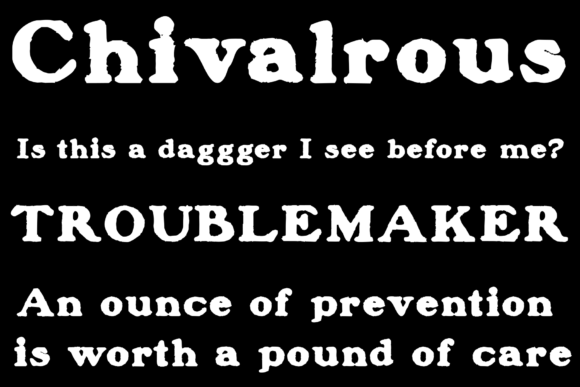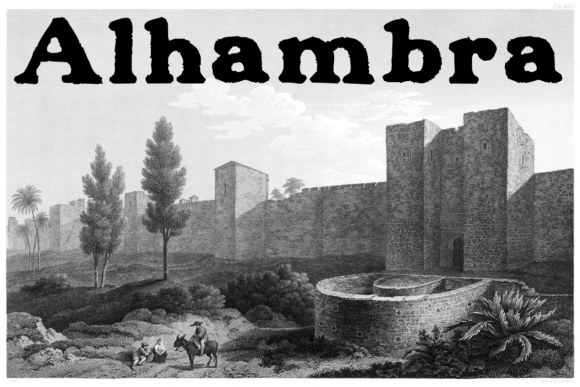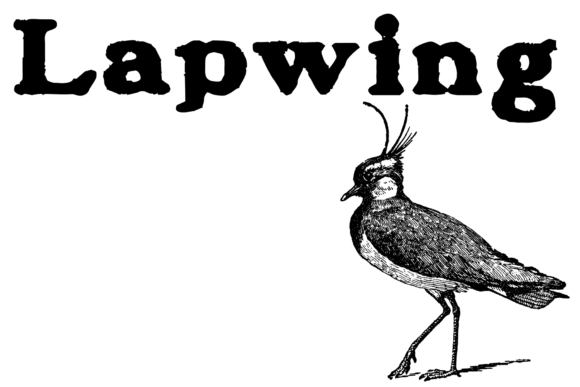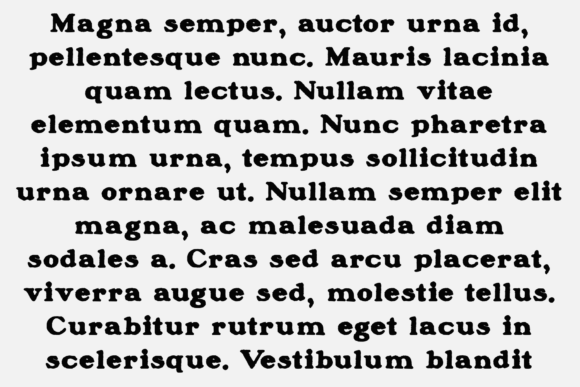
Discover the Timeless Elegance of Blanchard Inland Fc Font
In the world of typography, few fonts have managed to stand the test of time as gracefully as the Blanchard Inland Fc Font. This exquisite typeface, originally released by the esteemed Inland Type Foundry at the dawn of the 20th century, has been meticulously digitized to bring its classic charm to modern design aesthetics. Let’s unfold the history and beauty of this timeless classic, reimagined for contemporary designers and crafters.
A Legacy Born in the Early 20th Century
The Inland Type Foundry, a renowned name in the history of typography, first introduced the Blanchard Inland Fc Font in the early 1900s. This period marked a significant era in the evolution of typefaces, with a focus on elegance and readability. The Blanchard Inland Fc Font, with its unique character set, quickly gained popularity for its distinctive style that seemed to capture the essence of the times.
The Art of Digitization
Fast-forward to the digital age, where the art of typography has evolved to embrace the precision and versatility of digital fonts. The Blanchard Inland Fc Font has undergone a meticulous digitization process, aimed at preserving its original charm while adapting it to the needs of modern designers. This digitally revived typeface is not just a nostalgic nod to the past but a robust tool for contemporary design, offering unparalleled elegance and sophistication.
Characteristics of Blanchard Inland Fc Font
The Blanchard Inland Fc Font is characterized by its classic yet modern appeal. Each character in this typeface unfolds a piece of history, meticulously crafted to reflect the sophistication and elegance of the early 20th-century typography. The font features:
- Timeless Design: A fusion of traditional elements with a modern twist, making it suitable for a wide range of design projects.
- High Readability: Ideal for both digital and print media, ensuring your message is conveyed with clarity and style.
- Versatility: Perfect for headings, titles, and body text, offering designers the flexibility to create visually appealing content.
- Digital Precision: Meticulously digitized to ensure crisp and clear rendering across various devices and screen sizes.
Applications in Modern Design
The Blanchard Inland Fc Font, with its rich history and modern elegance, finds applications in various design projects. Whether you’re working on:
- Branding: Establish a legacy with a timeless brand identity that speaks of tradition and sophistication.
- Web Design: Enhance user experience with a font that offers both aesthetic appeal and readability.
- Print Media: Bring a touch of classic elegance to your publications, from magazines to brochures and posters.
- Packaging: Stand out on the shelves with packaging that exudes luxury and refinement.
The Blanchard Inland Fc Font represents a brilliant fusion of tradition and modern elegance, making it a valuable asset for designers and crafters. Its meticulous digitization pays tribute to centuries-old craftsmanship while embracing today’s digital precision. By incorporating this timeless typeface into your projects, you’re not just choosing a font; you’re embracing a piece of history, reimagined for the contemporary world. Discover the charm of the past, intertwined with the sophistication of the present, with the Blanchard Inland Fc Font.
Embark on a journey through the realms of typography with the Blanchard Inland Fc Font, where tradition meets modernity in a beautiful dance of design and elegance.